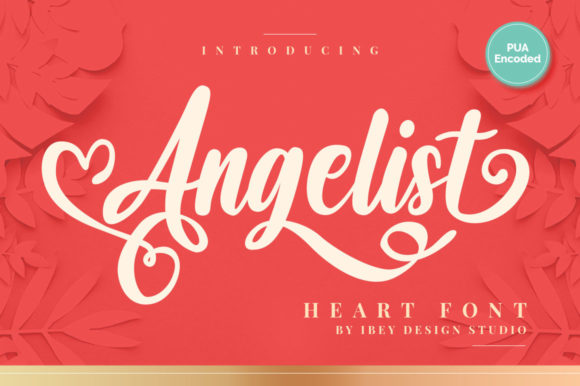
Introducing Angelist Heart Font: The Ultimate Romantic Calligraphy Typeface
Are you a designer or crafter looking for a font that can add a touch of luxury and romance to your design projects? Look no further than Angelist Heart Font, a beautiful and sweet calligraphy typeface that is sure to capture the hearts of your audience. In this article, we’ll take a closer look at the features and benefits of Angelist Heart Font, and explore how it can elevate your designs to the next level.
What is Angelist Heart Font?
Angelist Heart Font is a romantic and sweet calligraphy typeface that is designed to add a touch of elegance and sophistication to any design project. The font features characters that dance along the baseline, creating a sense of movement and fluidity that is sure to capture the attention of your audience. With its luxurious and refined aesthetic, Angelist Heart Font is perfect for designers and crafters who want to create beautiful and eye-catching designs.
Key Features of Angelist Heart Font
So, what makes Angelist Heart Font so special? Here are just a few of the key features that set it apart:
- PUA Encoded: Angelist Heart Font is PUA encoded, which means that you can access all of the amazing glyphs and ligatures with ease. This makes it easy to create beautiful and complex designs without having to worry about complicated coding or technical issues.
- Luxury Spark: Angelist Heart Font is designed to add a luxury spark to any design project. With its refined and elegant aesthetic, it’s perfect for designers and crafters who want to create high-end designs that stand out from the crowd.
- Romantic and Sweet: The font features a romantic and sweet calligraphy style that is sure to capture the hearts of your audience. Whether you’re creating wedding invitations, Valentine’s Day cards, or other romantic designs, Angelist Heart Font is the perfect choice.
Benefits of Using Angelist Heart Font
So, why should you choose Angelist Heart Font for your design projects? Here are just a few of the benefits of using this beautiful font:
- Elegant and Sophisticated: Angelist Heart Font adds an elegant and sophisticated touch to any design project. With its refined aesthetic and luxurious feel, it’s perfect for designers and crafters who want to create high-end designs.
- Easy to Use: The font is PUA encoded, which makes it easy to access all of the amazing glyphs and ligatures. This means that you can focus on creating beautiful designs without having to worry about complicated technical issues.
- Versatile: Angelist Heart Font is a versatile font that can be used for a wide range of design projects. Whether you’re creating wedding invitations, business cards, or other designs, this font is sure to add a touch of luxury and sophistication.
| Font Name | Angelist Heart Font |
| Author | ibeydesign |
In conclusion, Angelist Heart Font is a beautiful and romantic calligraphy typeface that is sure to add a touch of luxury and sophistication to any design project. With its PUA encoded feature, elegant aesthetic, and versatile design, it’s perfect for designers and crafters who want to create high-end designs. Whether you’re creating wedding invitations, business cards, or other designs, Angelist Heart Font is the perfect choice. So why wait? Download Angelist Heart Font today and start creating beautiful designs that capture the hearts of your audience!